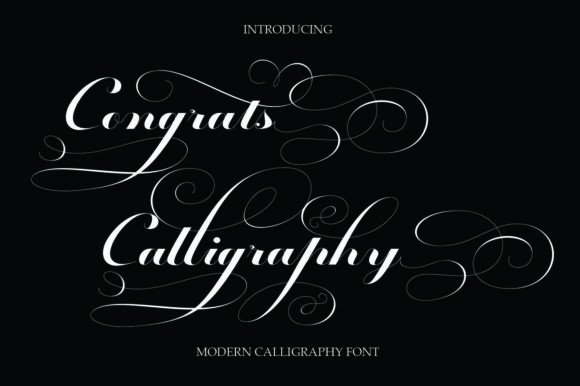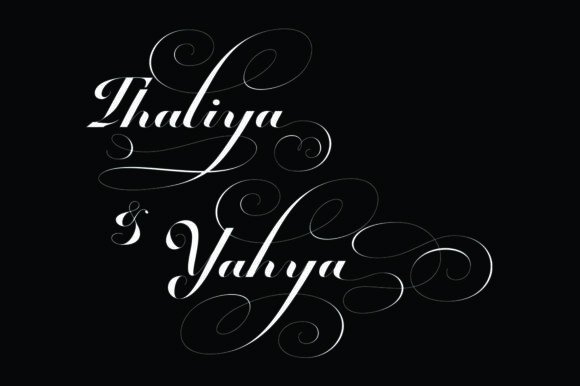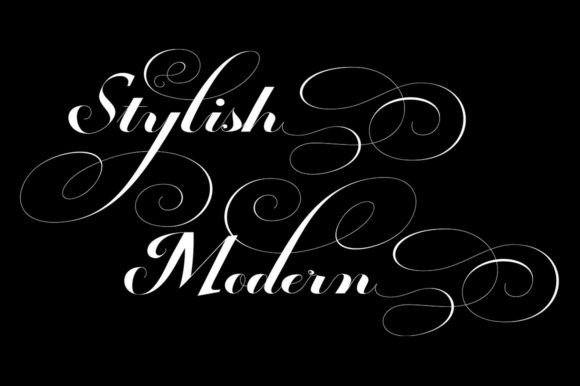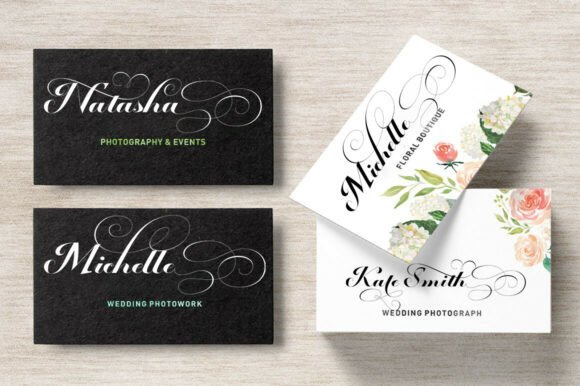
Congrats Calligraphy Font
About the Congrats Calligraphy Font
Welcome to the world of Congrats Calligraphy Font, a typeface that will inspire your next great project. Congrats Calligraphy is an exquisite modern calligraphy font that combines timeless elegance with graceful flourishes. Designed with luxurious swashes and refined contrast, this font is perfect for wedding invitations, elegant branding, logos, certificates, and upscale packaging. Every letter flows with style, giving your designs a sophisticated, high-class finish.
Its elegant, slightly formal tone makes it ideal for projects requiring sophistication and a touch of luxury. Consider using it for headlines, logos, short quotes, and high-end product packaging. However, avoid using it for large blocks of text or body copy; the intricate details would become illegible and visually overwhelming. Its delicate swashes also make it less suitable for UI design or situations needing high readability.
Pairings that complement Congrats Calligraphy include clean sans-serif fonts like Montserrat or Lato for a modern contrast, or a classic serif like Garamond or Playfair Display for a more traditional feel. For a touch of playful contrast, consider a simpler script font with less ornamentation.
The overall personality of Congrats Calligraphy is refined elegance with a touch of modern flair. It best suits brands associated with luxury goods, high-end services, weddings, and special events. Its graceful lines and subtle flourishes evoke a feeling of understated sophistication.
Congrats Calligraphy Font Usage Examples
Congrats Calligraphy Font Example